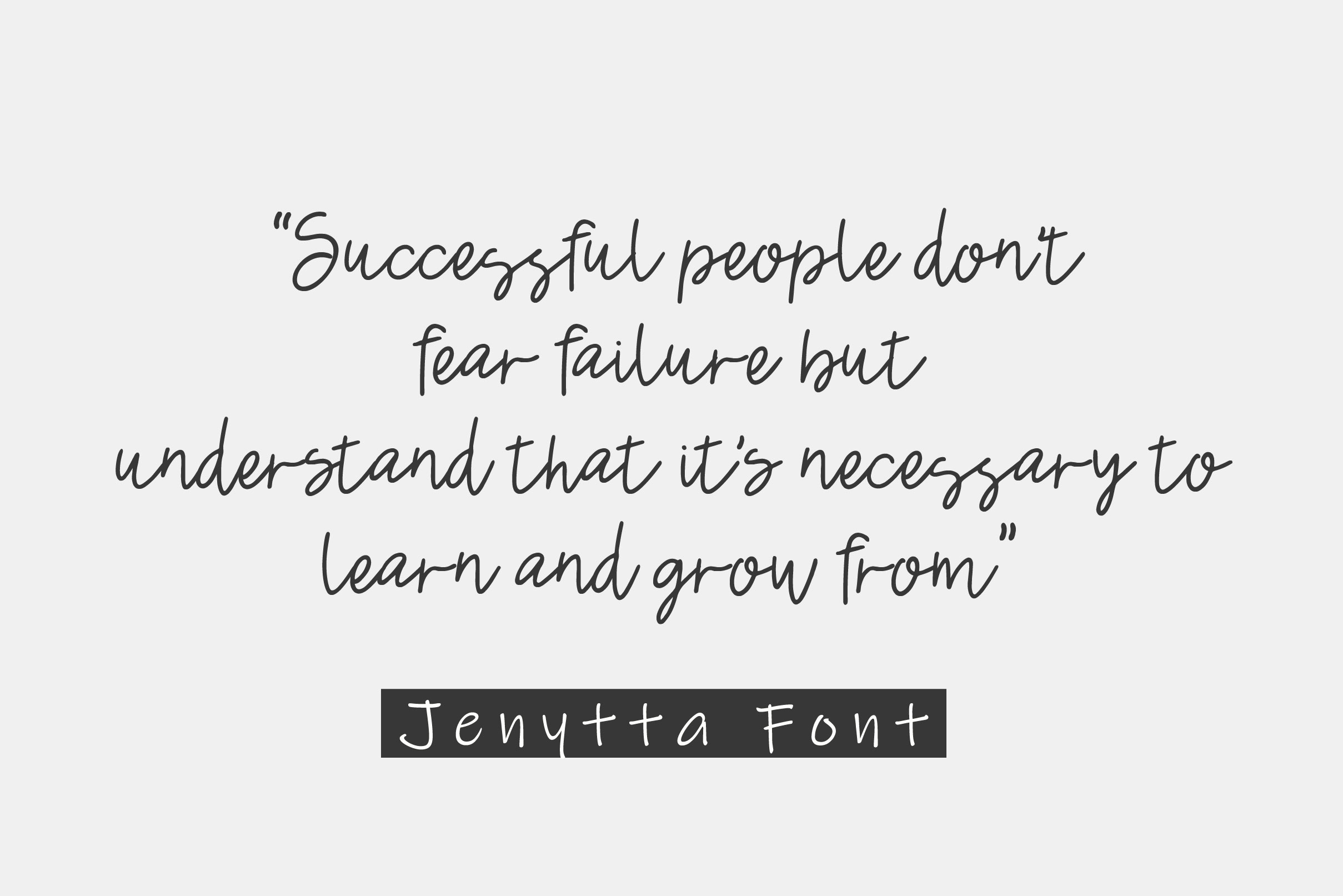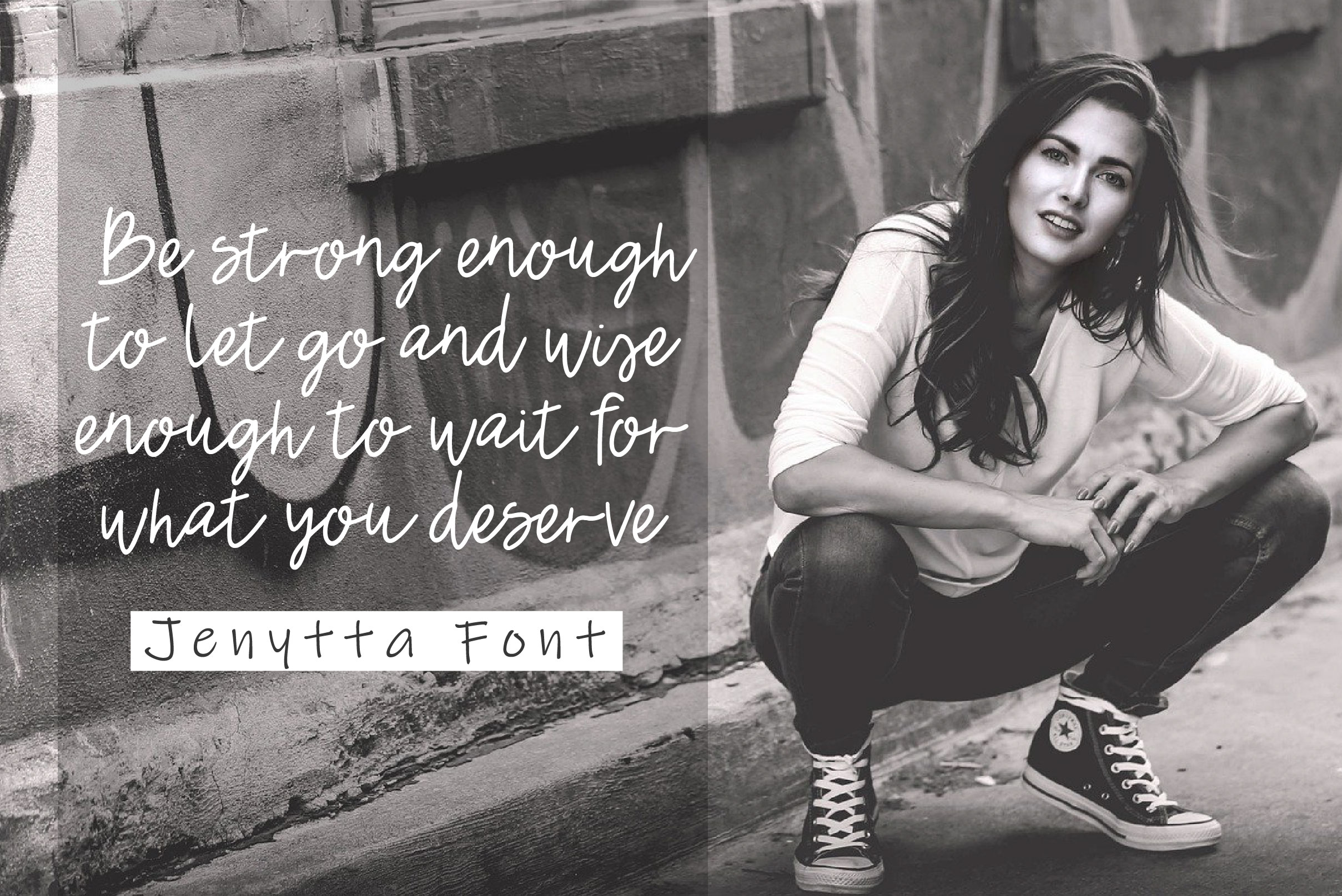
Jenytta Font
Jenytta Handwritten Font is a delicate, elegant and flowing handwritten font. It has beautiful and well balanced characters and as a result, it matches a wide pool of designs. Add it to your most creative ideas and notice how it makes them come alive!
– Uppercase, Lowercase, Numeral & Punctuation
– Alternate Letters, Ligature & Swash/Tail